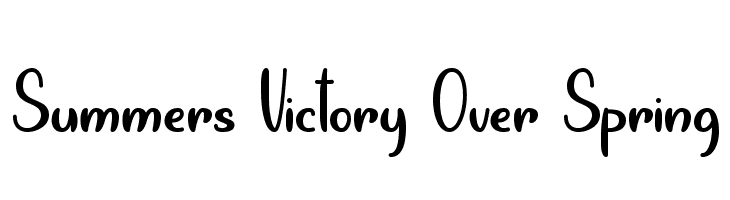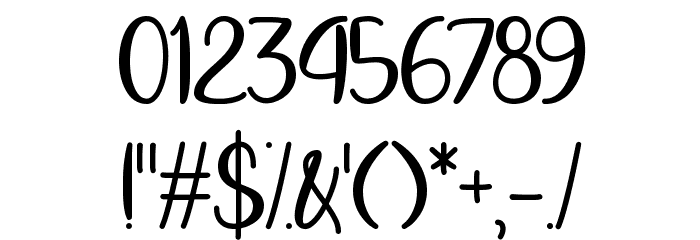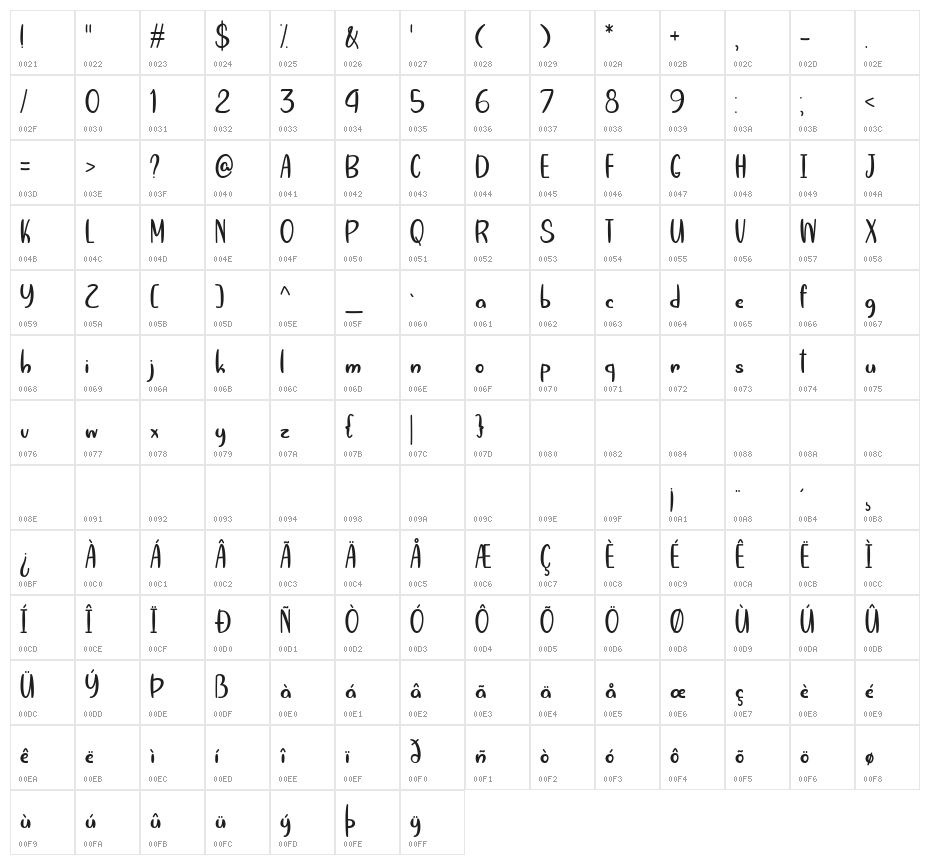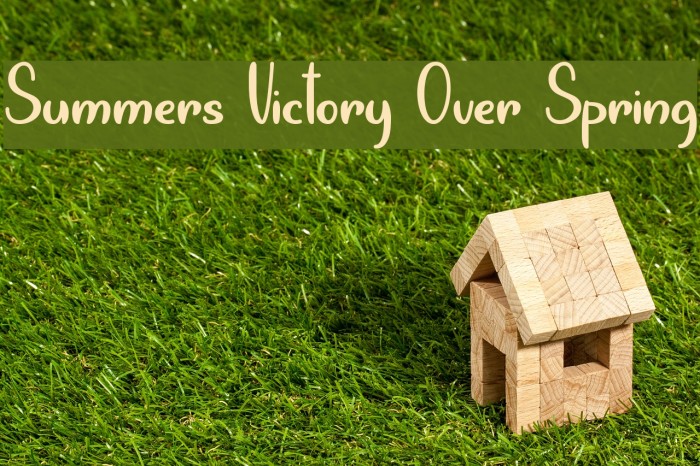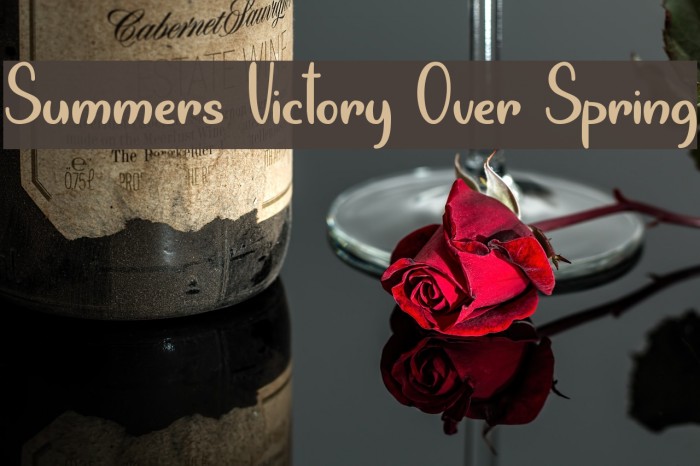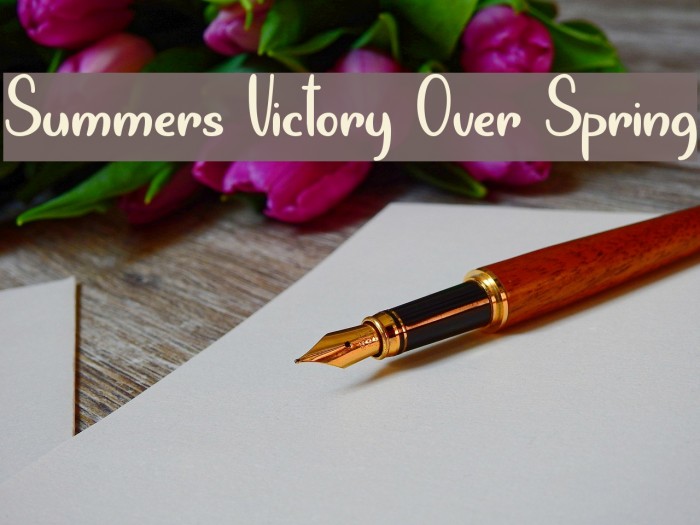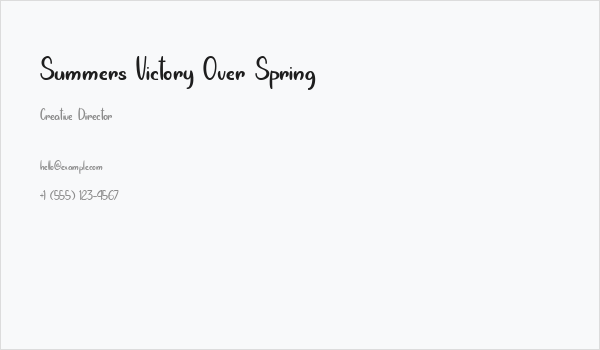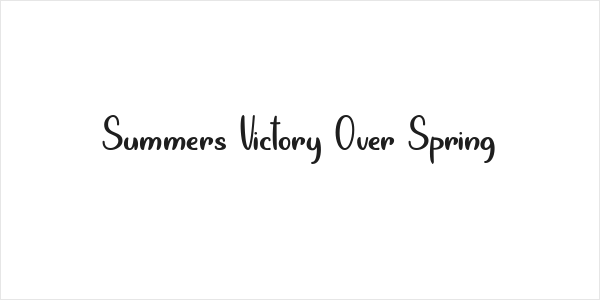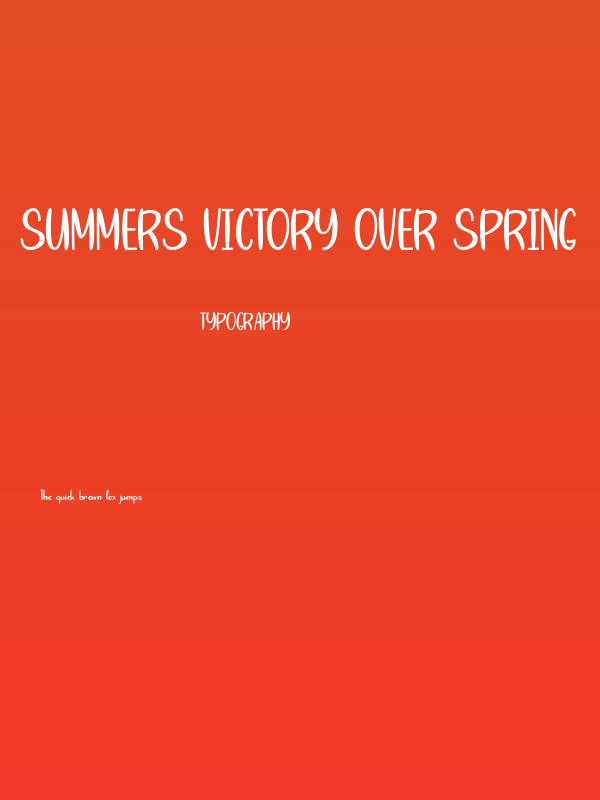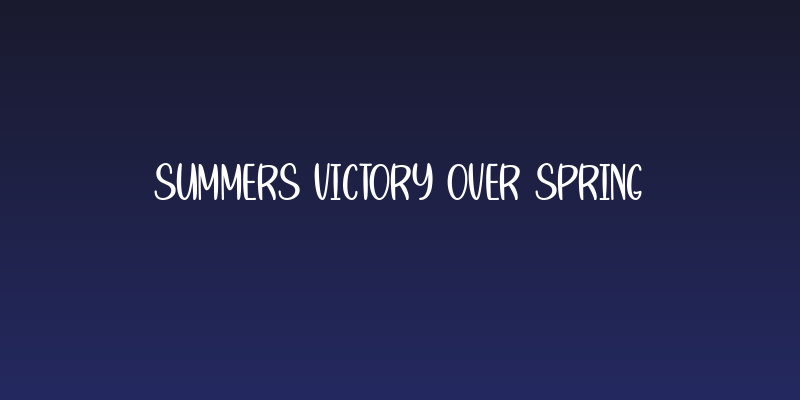
Summers Victory Over Spring Font
Summers Victory Over Spring Description
This font features a playful and whimsical style with a handwritten appearance. The letters are slightly elongated with rounded edges, giving it a friendly and approachable look. The uppercase characters maintain a consistent height, while the lowercase letters have a charming irregularity, adding to the casual feel. The numbers are bold and clear, making them easily readable. Special characters are well-integrated, maintaining the overall aesthetic. This font is perfect for projects that require a personal touch or a fun, informal vibe.
| Overall Style | Playful, Casual |
| Proposed Projects | Ideal for greeting cards, children's books, playful branding, and social media graphics. |